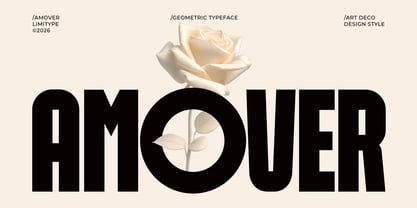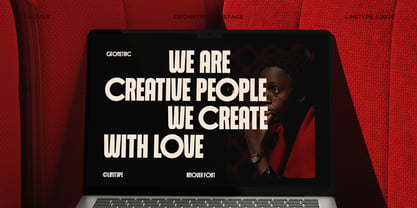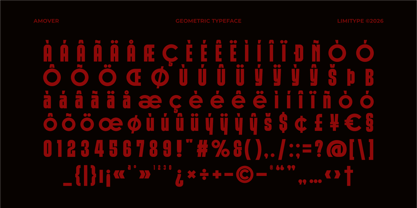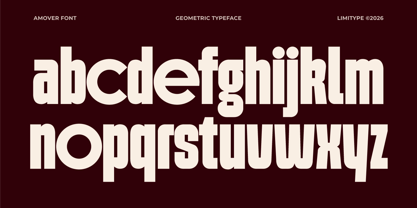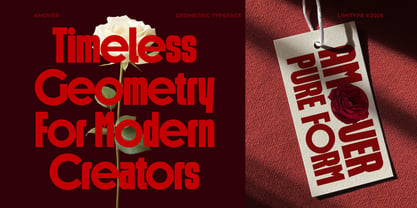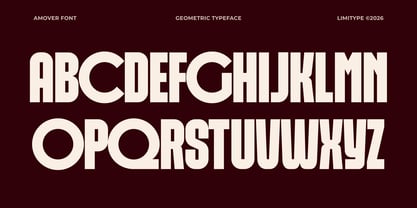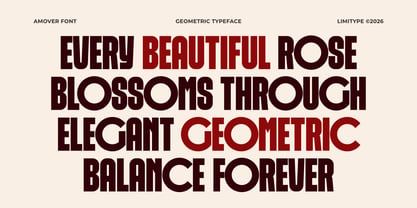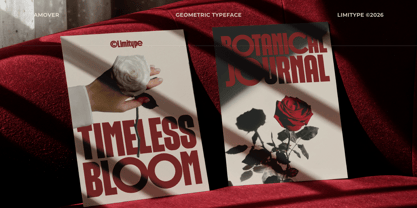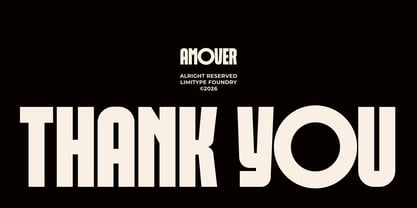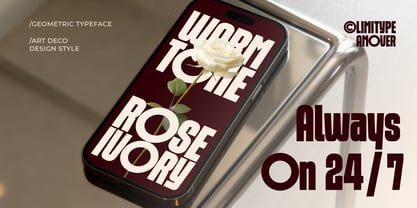
Amover
von limitype
Die Schriftfamilie Amover wurde von Muhammad Muammar, Furqan Sudirman entworfen und von limitype veröffentlicht. Amover enthält 1 Stile. Mehr über diese Familie
Amover is a bold geometric display font with tall, slim proportions and clean, sturdy letterforms. Its balanced geometric construction delivers excellent readability while creating a modern, confident, and distinctive look. Perfect for logos, branding, labels, editorial layouts, posters, headlines, magazine, packaging, and social media graphics. Amover brings a clean contemporary style that adds a bold and professional character to any design.
Designer: Muhammad Muammar, Furqan Sudirman
Foundry: limitype